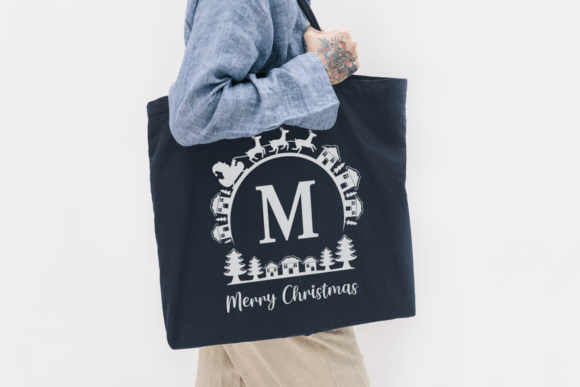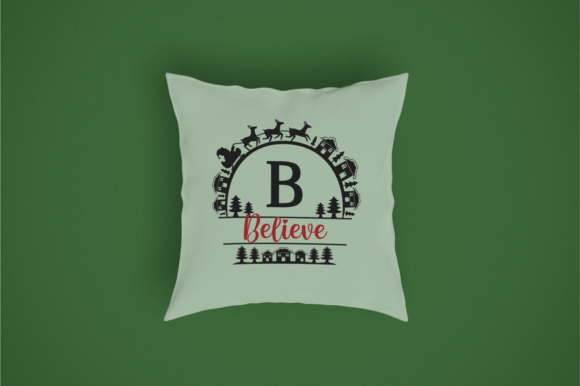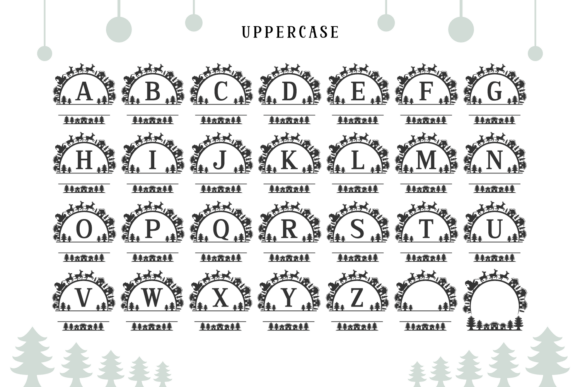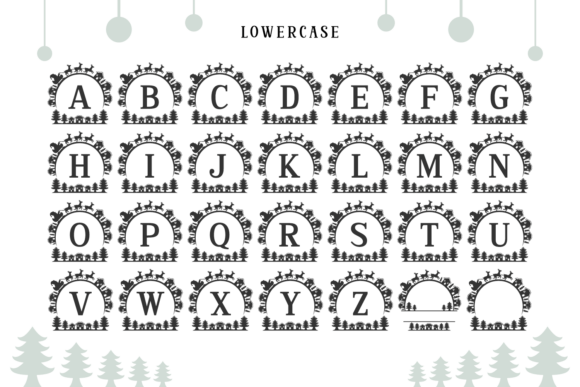
Introducing Christo Font: The Ultimate Christmas Monogram for Designers and Crafters
Are you looking for a unique and eye-catching way to add a touch of festive magic to your holiday designs? Look no further than the Christo Font, a specialty Christmas monogram font that is sure to captivate your audience. This highly illustrative font is perfect for creating detailed, single-color designs that tell a complete Christmas story, making it extremely popular among designers, vinyl cutters, and heat transfer project enthusiasts.
A Narrative Scene within a Letter Frame
What sets Christo Font apart from other monogram fonts is its incredible design, featuring Santa’s sleigh soaring over a quaint, rustic Christmas village silhouette. This stunning scene is carefully crafted within the letter frame, creating a dramatic and circular composition that ensures an immediate visual impact. Whether you’re creating large family signs, banners, or stocking tags, the Christo font is sure to make your designs stand out.
Perfect for Vinyl Cutters and Heat Transfer Projects
The Christo Font is a dream come true for vinyl cutters and heat transfer project enthusiasts. Its unique design allows for intricate details to be preserved, even when used in single-color designs. This means you can create stunning, professional-looking projects with ease, using a single color to bring your designs to life. From custom signs and banners to personalized stocking tags and gifts, the Christo font is the perfect choice for any holiday project.
A Complete Piece of Holiday Art
More than just a simple letter, the Christo Font is a complete piece of holiday art. Its distinctive, classic look is sure to evoke a sense of nostalgia and wonder, making it perfect for any seasonal creation. Whether you’re a designer looking for a unique font to add to your collection, or a crafter seeking a special touch for your holiday projects, the Christo font is sure to impress.
Key Features of Christo Font
- Specialty Christmas monogram font featuring a narrative scene within its letter frame
- Includes Santa’s sleigh soaring over a quaint, rustic Christmas village silhouette
- Highly illustrative design perfect for creating detailed, single-color designs
- Dramatic, circular composition ensures an immediate visual impact
- Ideal for large family signs, banners, stocking tags, and more
- Perfect for vinyl cutters and heat transfer projects
Tips for Using Christo Font in Your Designs
To get the most out of the Christo Font, here are a few tips to keep in mind:
- Use a single color to bring your designs to life and preserve intricate details
- Experiment with different sizes and orientations to create unique and eye-catching designs
- Combine with other festive fonts and graphics to create a cohesive holiday look
- Consider using the Christo font for large-scale projects, such as banners and signs
The Christo Font is a truly unique and captivating specialty Christmas monogram font that is sure to add a touch of festive magic to your holiday designs. Its highly illustrative design, featuring Santa’s sleigh soaring over a quaint, rustic Christmas village silhouette, makes it perfect for creating detailed, single-color designs that tell a complete Christmas story. Whether you’re a designer, vinyl cutter, or heat transfer project enthusiast, the Christo font is sure to become a favorite in your collection.
Get ready to make your holiday designs shine with the Christo Font – a complete piece of holiday art that’s sure to delight!